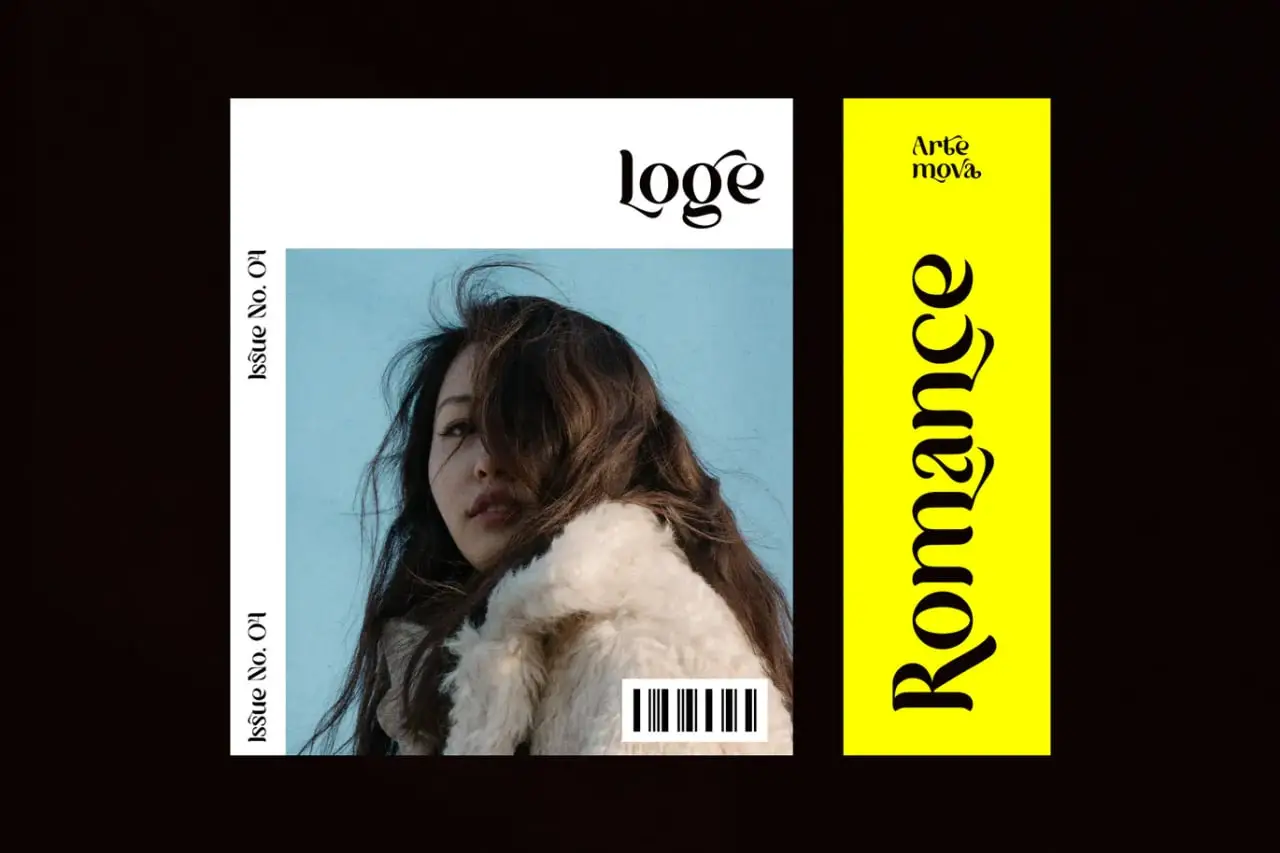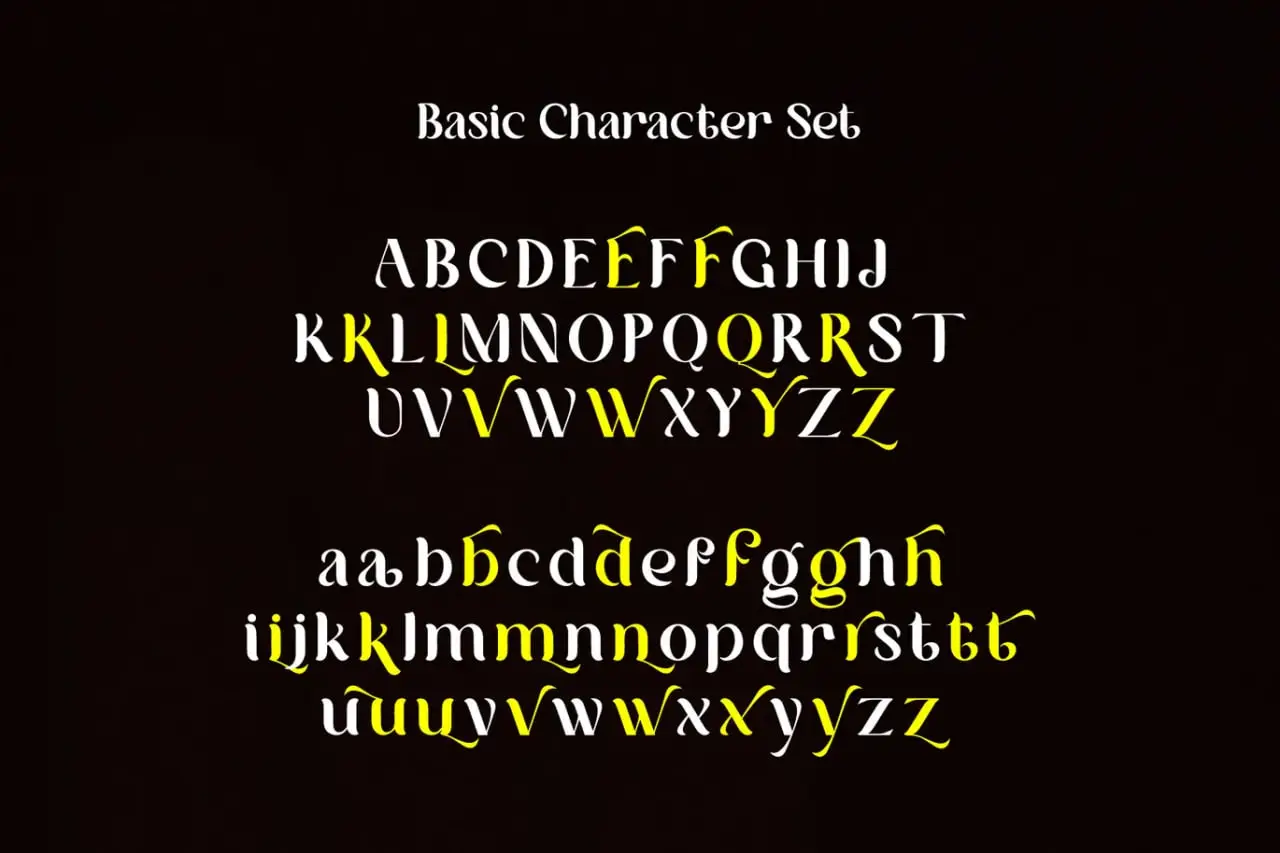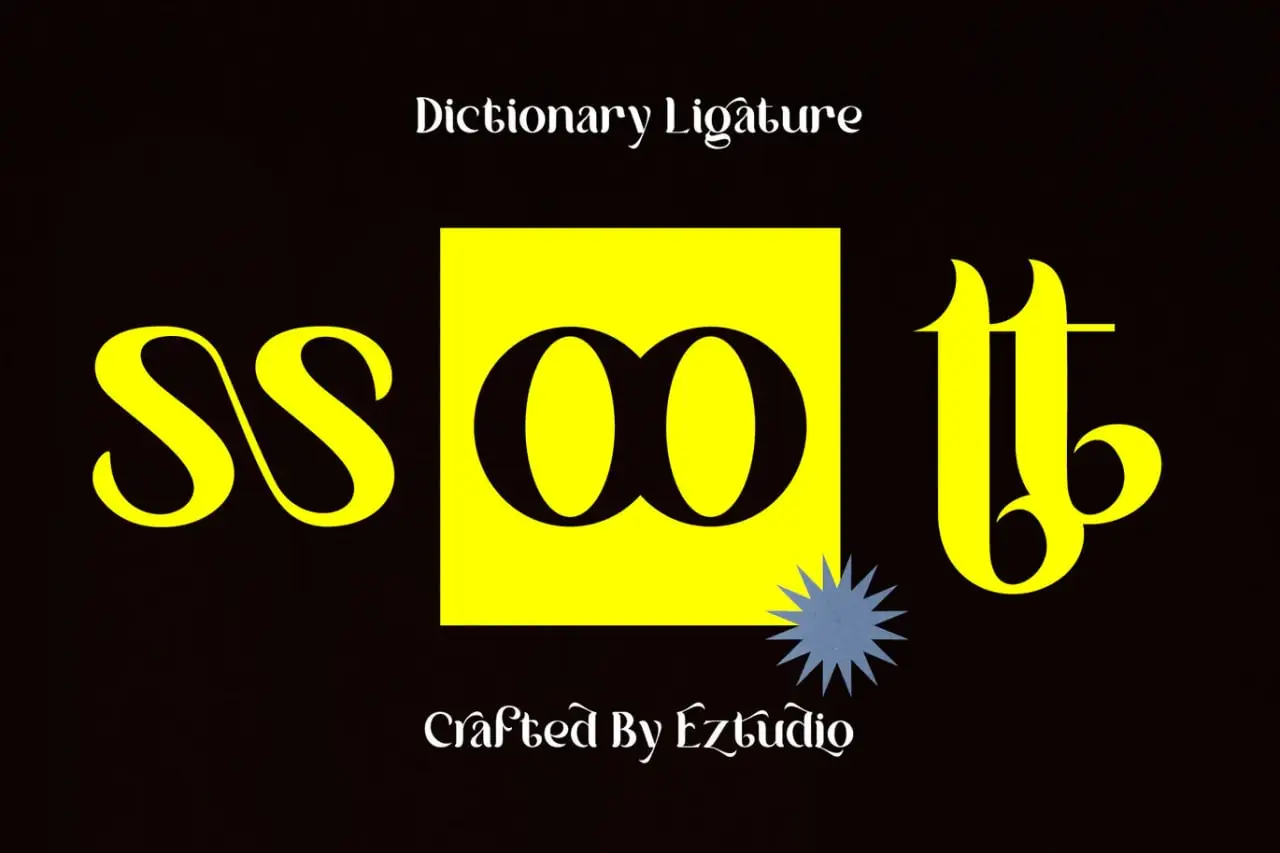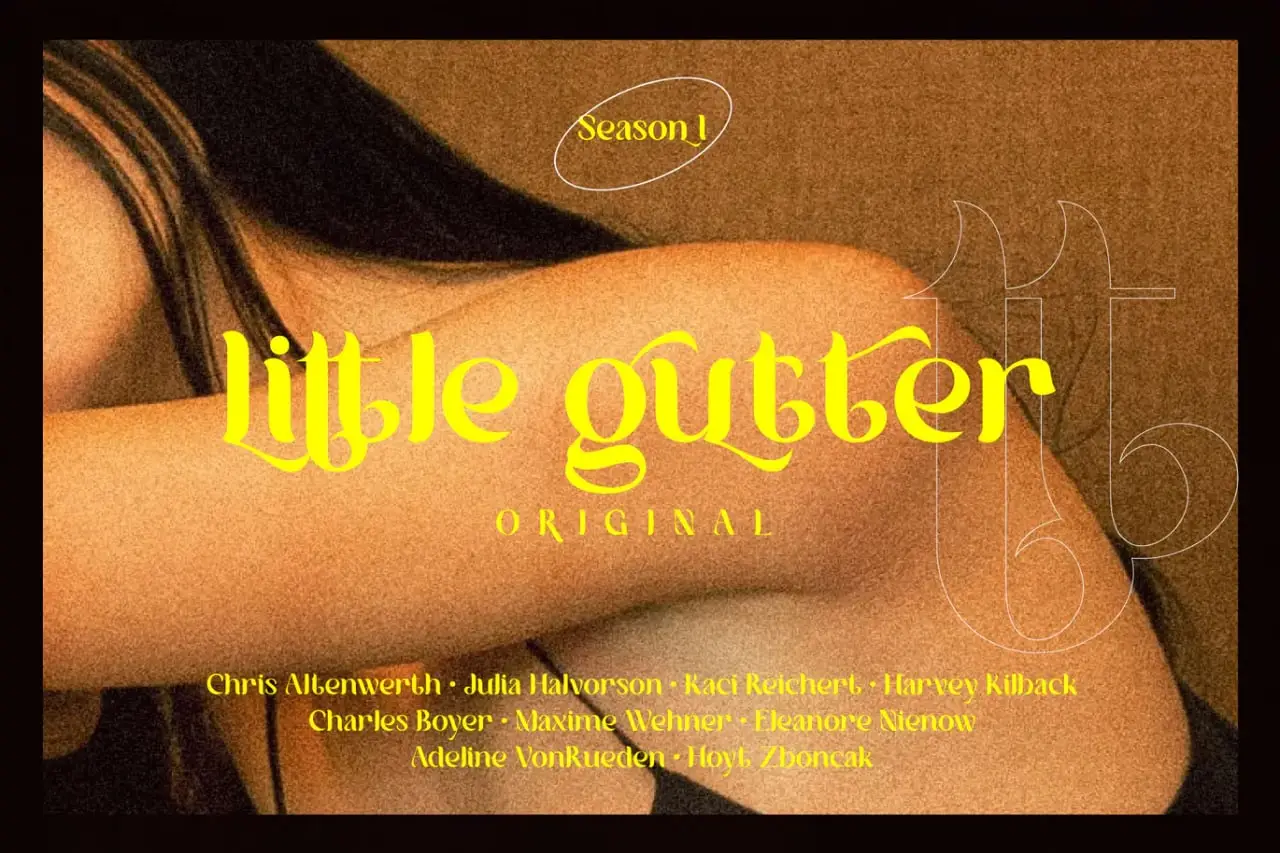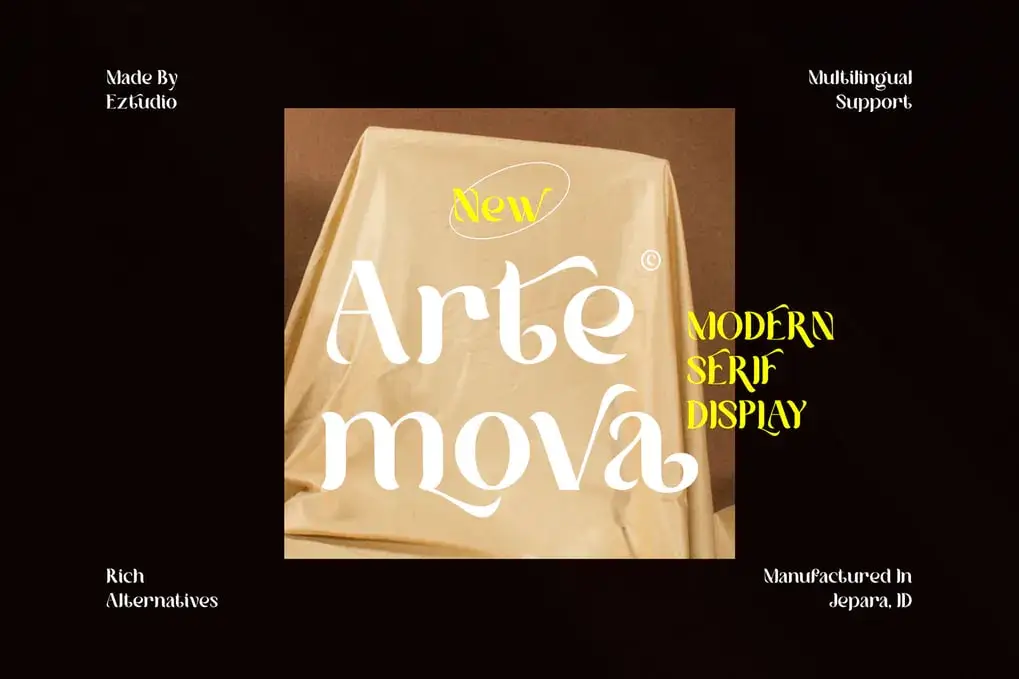
Ezstudio Modern Serif Display Font Artemova
Introducing the Ezstudio Modern Serif Display Font Artemova, a sophisticated typeface designed to elevate your creative projects. This font features elegant serif details that add a touch of refinement and style, making it perfect for a variety of applications.
• Stylish serif design for a contemporary look
• Uppercase and lowercase letters included
• Numerals and punctuation for complete text support
This font is ideal for branding, logos, web design, print materials, and user interfaces. Its modern aesthetic makes it suitable for both professional and artistic projects.